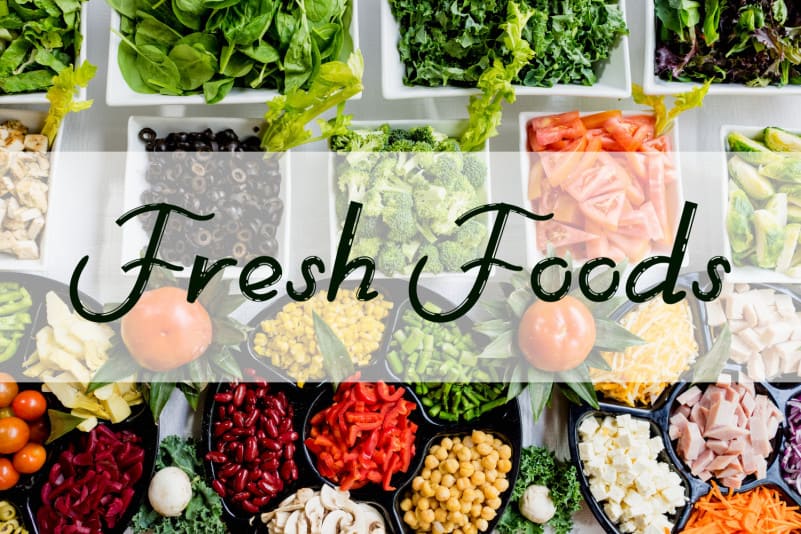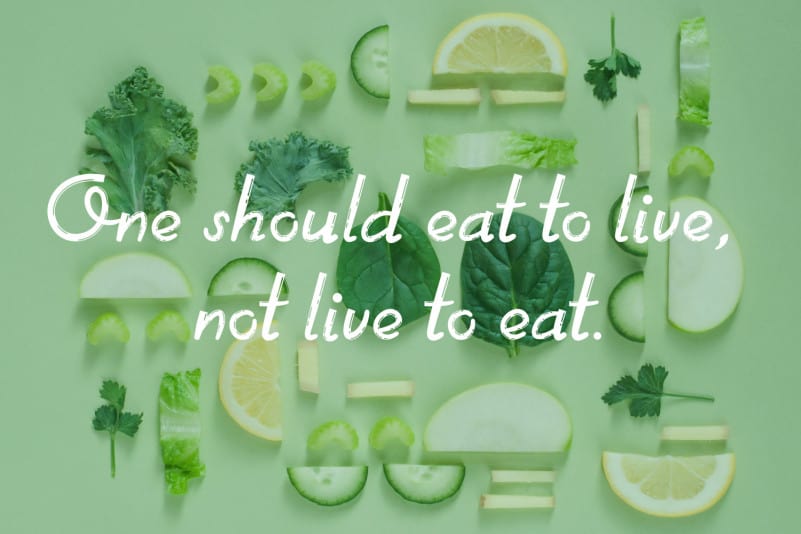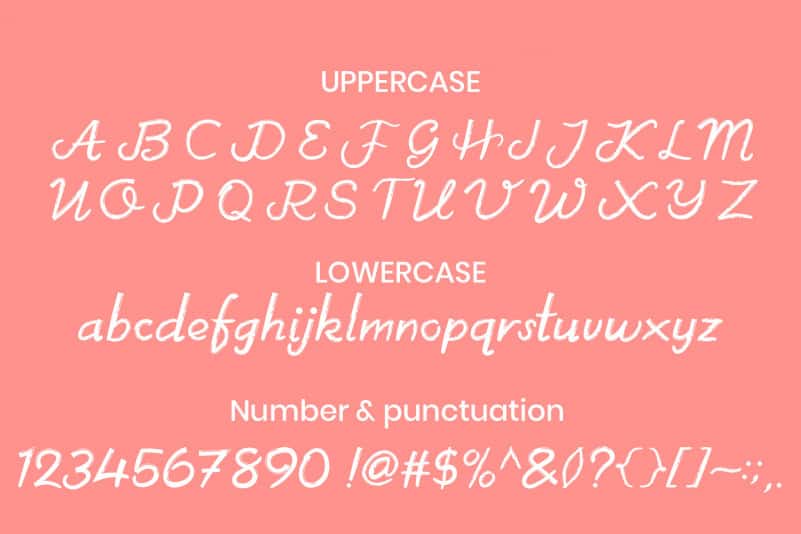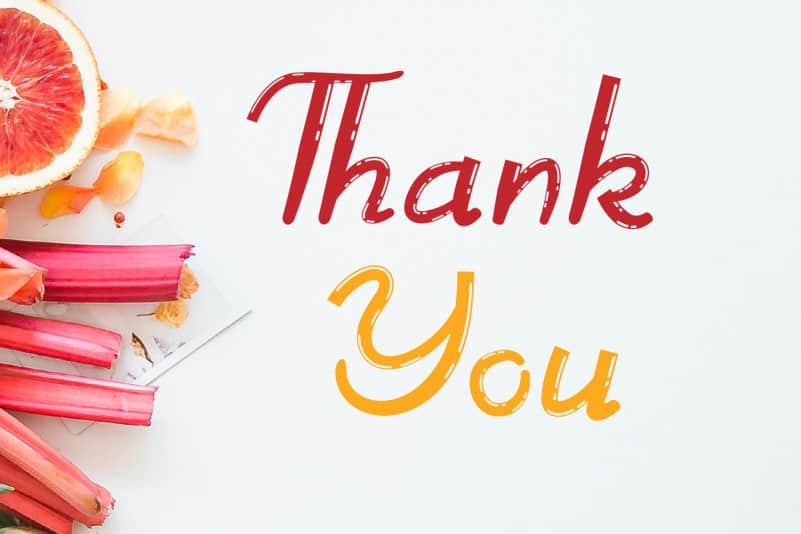
Great Food Script Font
Great Food Script Font is a delicate, elegant and flowing handwritten typeface. It has beautiful and well balanced characters and as a result, it matches a wide pool of designs. Add it to your most creative ideas and notice how it makes them come alive!